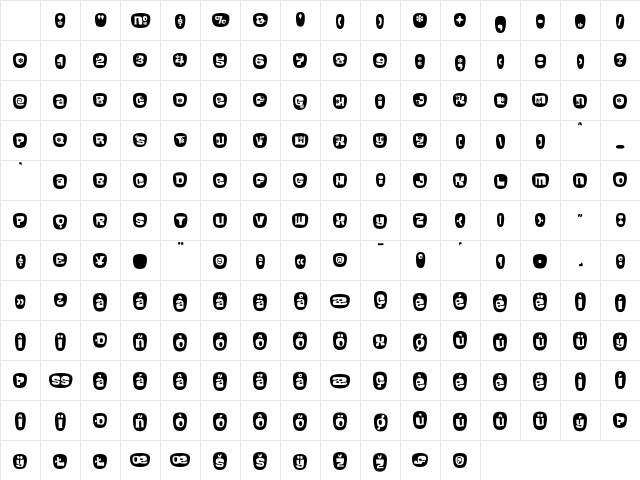
Complete Blackcurrant Cameo glyph index. Displaying only characters natively supported by Blackcurrant Cameo font.
Blackcurrant is a composed and adaptable typeface that performs quietly and consistently across a wide range of design contexts.